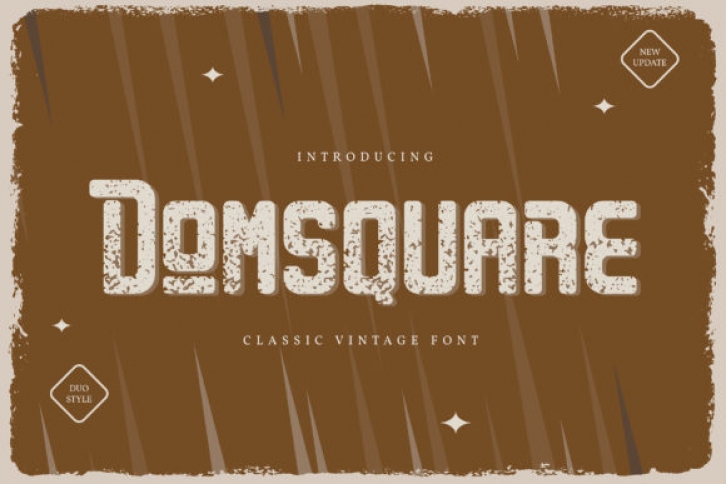
Domsquare is a cool and vintage styled display font. No matter the topic, this font will be an incredibly asset to your fonts’ library, as it has the potential to elevate any creation.